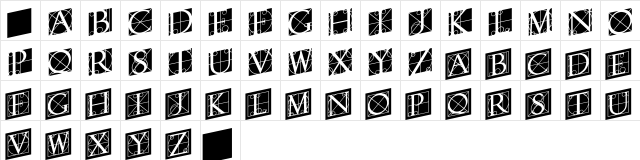
RodgauerTwo Regular Font Preview
RodgauerTwo Regular
Design Context for RodgauerTwo Typeface
RodgauerTwo is a composed and adaptable typeface that performs quietly and consistently across a wide range of design contexts.